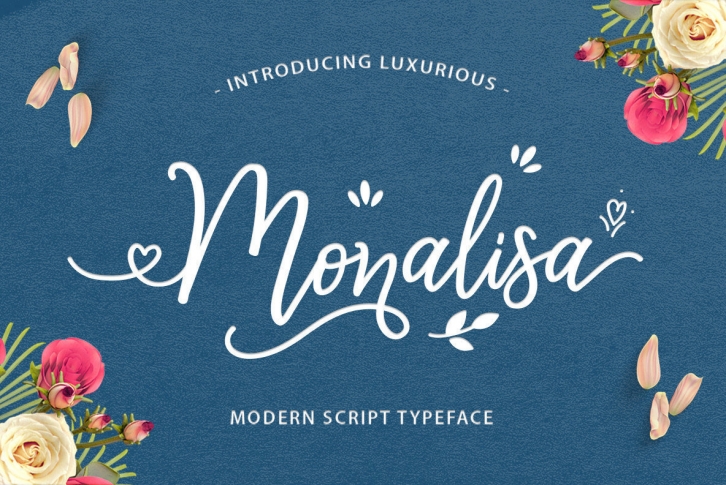
Monalisa Script is modern script typeface] that works great for wedding card designs, logotypes, website headers, fashion design and any more. Monalisa comes as a Monoline font, and also come with 413 Glyph and 37 Swash Characters. It contains a full set of lower & uppercase letters, a large range of punctuation, numerals, and multilingual support.
- Bonus Swash
- Multilingual support : Danish, Finnish, English, Spanish, Dutch, German, Icelandic, Italian, Norwegian,
Portuguese, Indonesian, Swedish